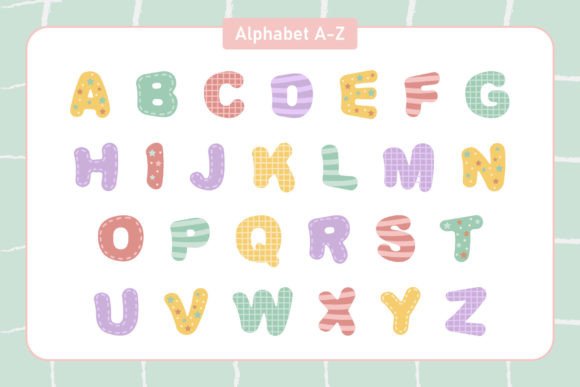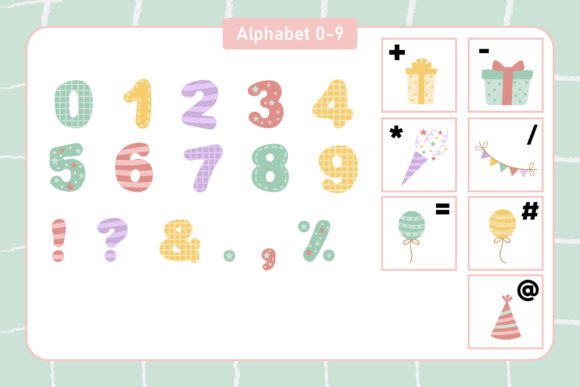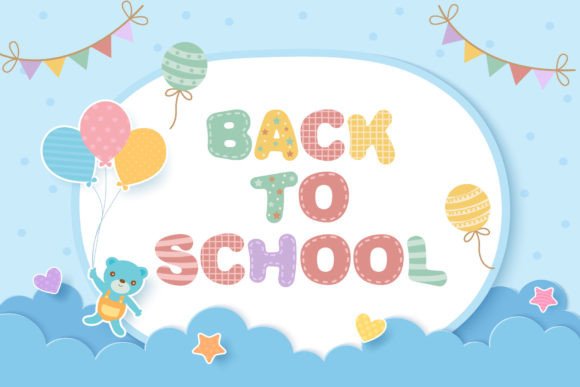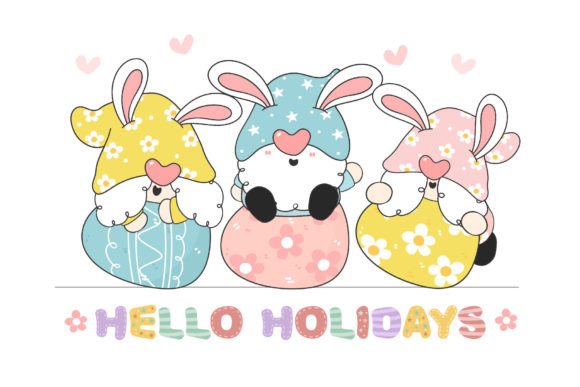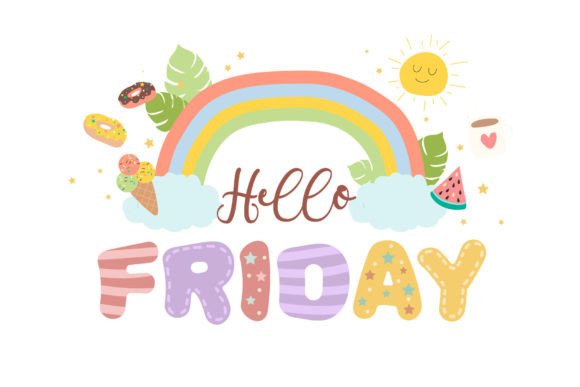
Discover the Charm of Cute Camila Font: Elevate Your Designs with a Bright and Fun Color Font
Are you on the hunt for a font that can add a touch of personality and whimsy to your designs? Look no further than the Cute Camila Font! This delightful color font is perfect for crafters, designers, and anyone looking to create stunning visual content that stands out from the crowd. In this article, we’ll dive into the world of Cute Camila, exploring its features, benefits, and uses, as well as provide you with valuable insights on how to make the most of this beautiful font.
What is Cute Camila Font?
Cute Camila is a vibrant, colorful font that’s sure to capture your heart. Its authentic feel and playful vibe make it an excellent choice for a wide range of design projects, from gorgeous invitations and beautiful stationery art to eye-catching social media posts and cute greeting cards. With Cute Camila, you can add a dash of fun and personality to your creations, making them truly unforgettable.
Key Features of Cute Camila Font
- Color Font (Opentype-SVG): Cute Camila is a cutting-edge color font that allows you to create stunning, multi-colored designs with ease.
Benefits of Using Cute Camila Font
So, why choose Cute Camila Font for your design projects? Here are just a few benefits you can expect:
- Adds Personality to Your Designs: With Cute Camila, you can infuse your creations with a playful, whimsical touch that’s sure to resonate with your audience.
- Versatile: This font is perfect for a wide range of design projects, from digital content to print materials.
- Easy to Use: Cute Camila is a straightforward font to work with, even for those new to design.
Creative Ways to Use Cute Camila Font
Now that we’ve covered the basics, let’s explore some creative ways to use Cute Camila Font in your designs:
- Invitations: Create stunning invitations for parties, weddings, and other special occasions with Cute Camila.
- Stationery Art: Add a touch of personality to your stationery with this beautiful font.
- Social Media Posts: Make your social media posts stand out with Cute Camila’s colorful, playful vibe.
- Greeting Cards: Design beautiful, one-of-a-kind greeting cards for any occasion.
Tips for Getting the Most Out of Cute Camila Font
To ensure you get the most out of Cute Camila Font, here are a few valuable tips:
- Experiment with Colors: Don’t be afraid to try out different color combinations to find the perfect look for your design.
- Play with Typography: Cute Camila is a versatile font that works well with a variety of typography styles.